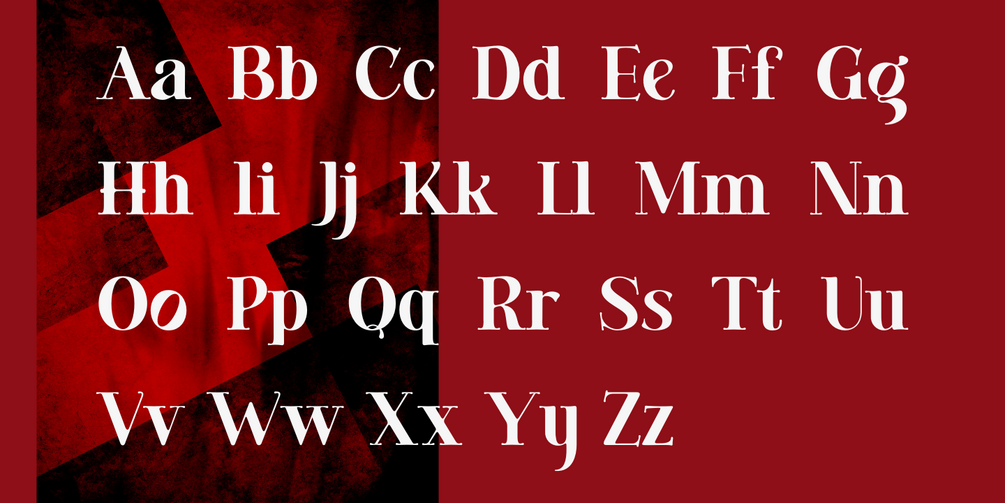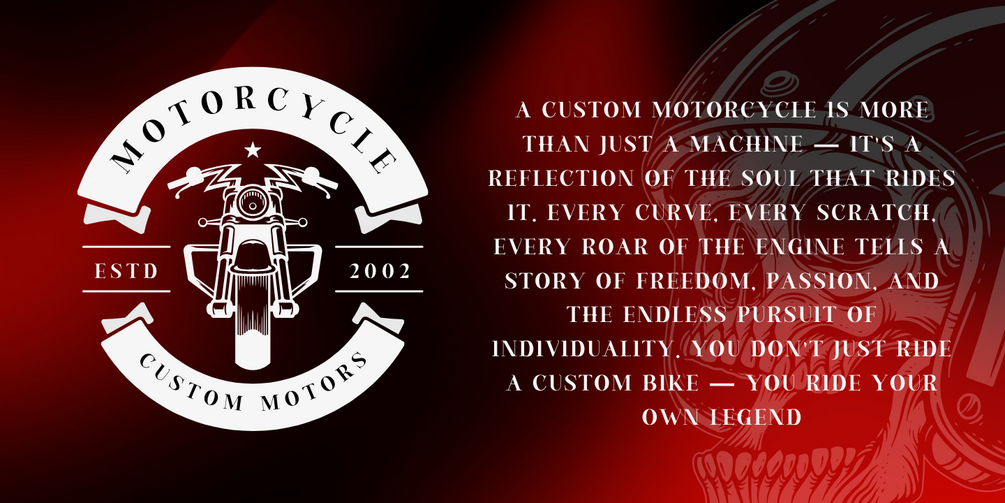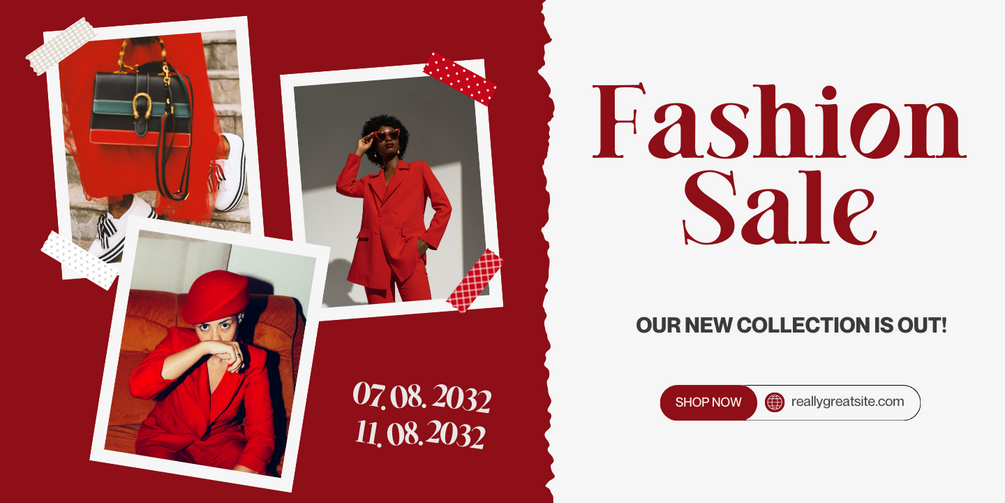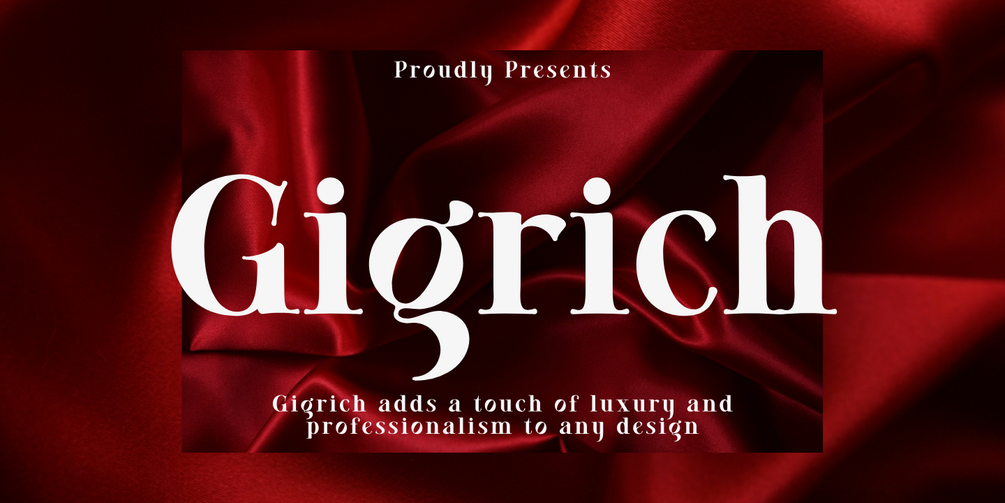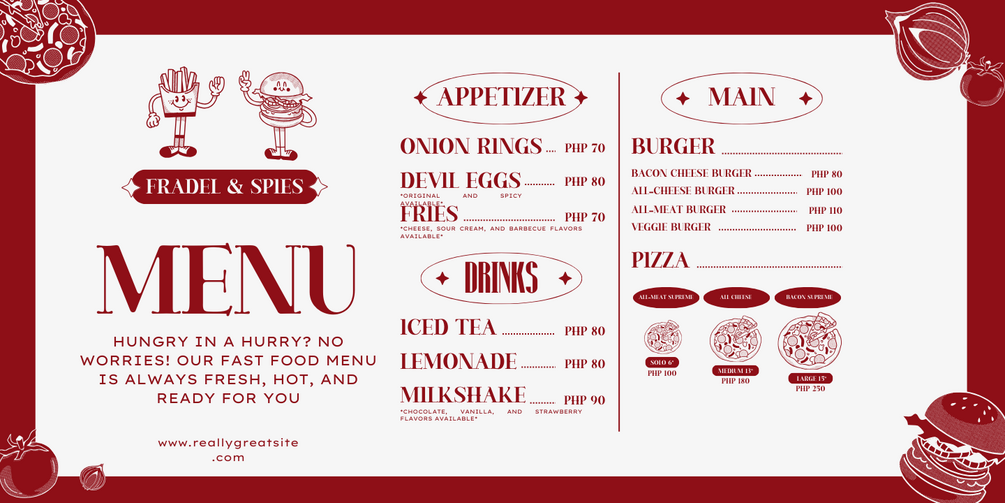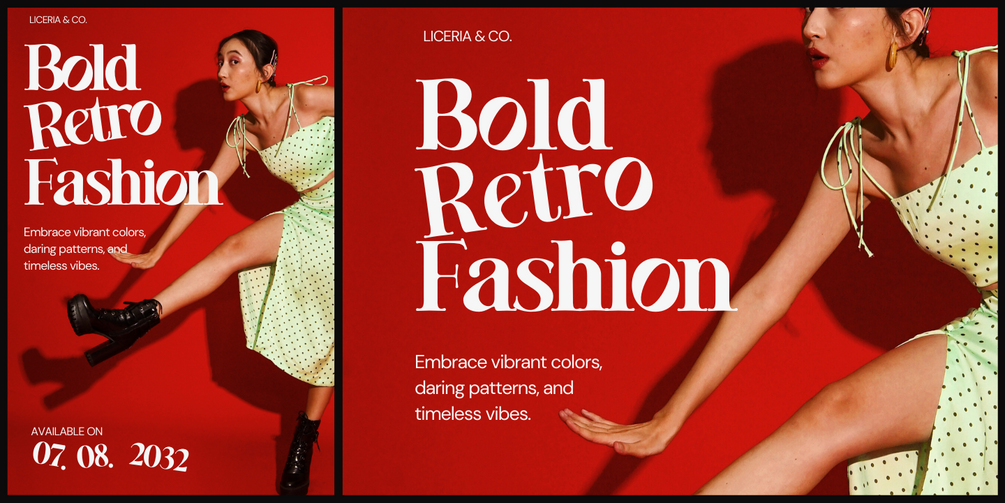
Gigrich
Gigrich – Timeless Elegance with a Modern Twist
Gigrich is a classic serif font that effortlessly combines sophistication with contemporary charm. Its distinctive feature, soft rounded edges, adds a sense of warmth and approachability while maintaining a confident and polished presence.
This versatile font is perfect for a wide range of design projects, from logos and magazines to invitations and branding. Whether you're aiming for luxury, professionalism, or simply a refined aesthetic, Gigrich ensures your designs stand out with elegance and clarity.
Why Choose Gigrich?
• Classic Serif Design – Embodies timeless sophistication with a touch of modern style.
• Soft Rounded Edges – Provides a gentle, approachable feel while remaining strong and professional.
• Perfect for Various Projects – Ideal for logos, branding, magazines, invitations, and more.
• Refined Luxury Look – Elevates any design with a premium, high-end appearance.
• Versatile and Elegant – A font that adds charm to both traditional and contemporary designs.
Make your designs stand out with the timeless elegance and modern appeal of Gigrich. Let every letter reflect luxury and sophistication in your next project.